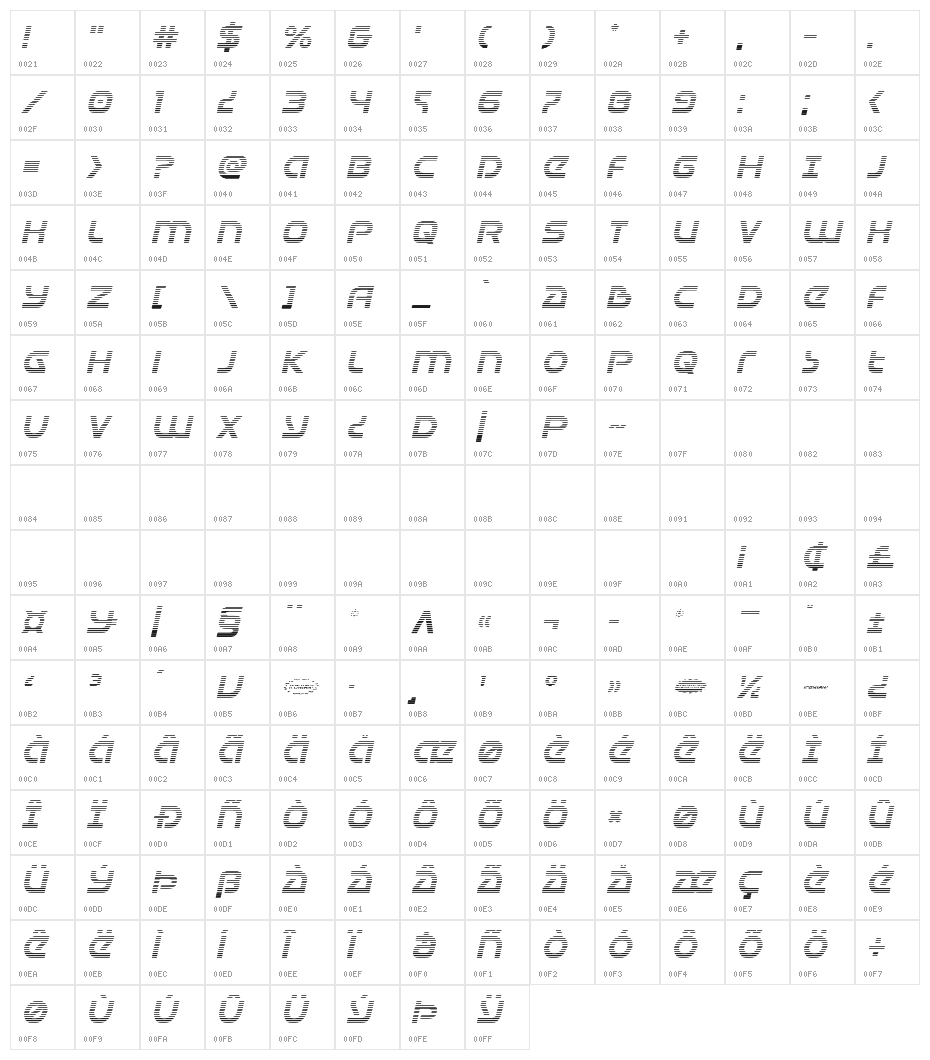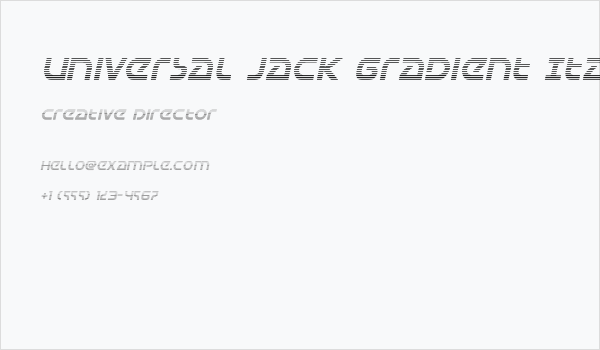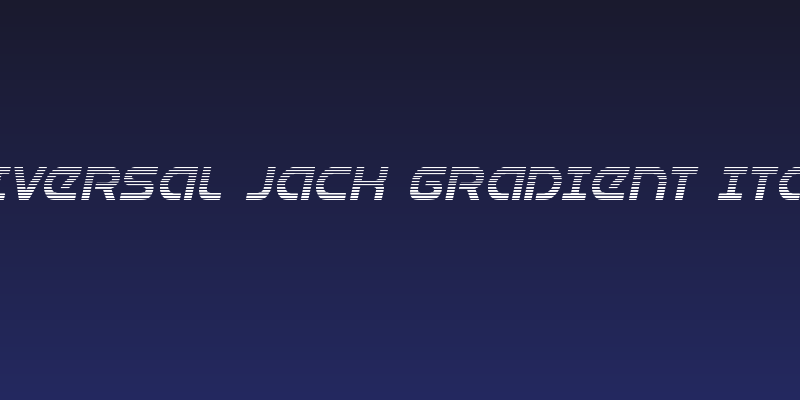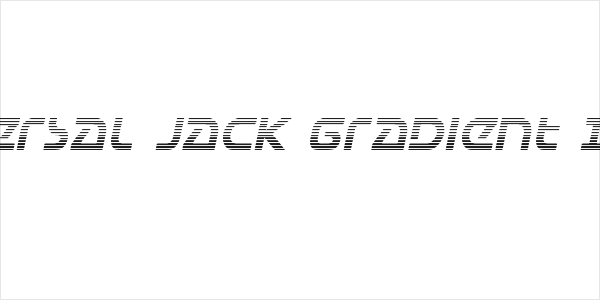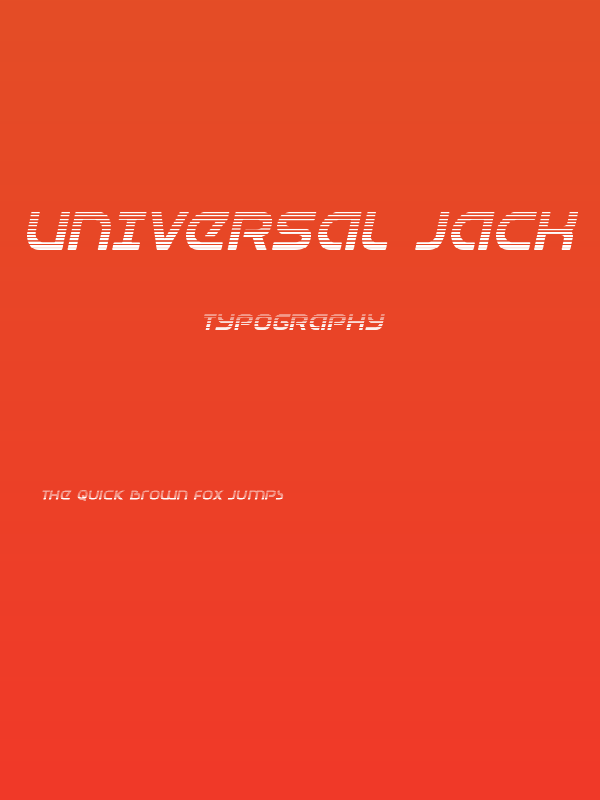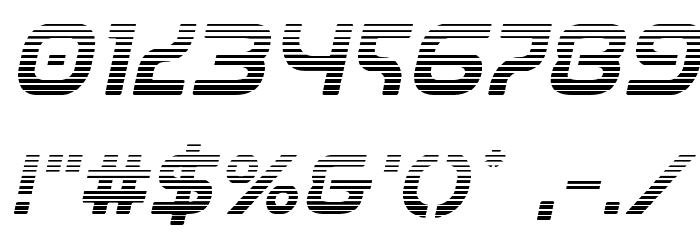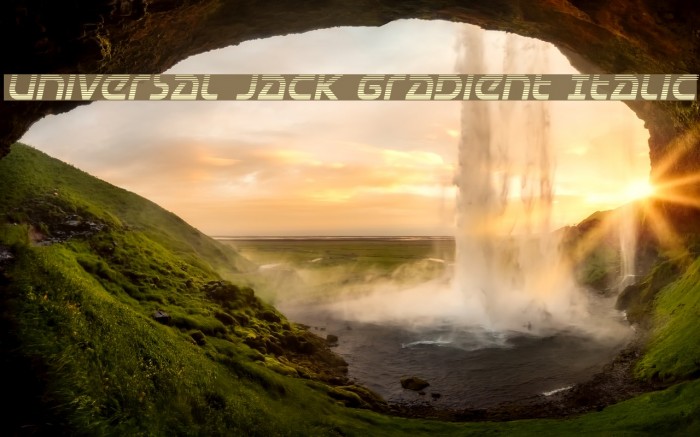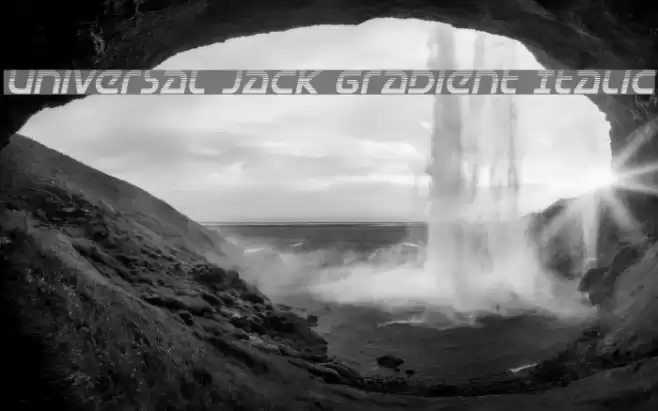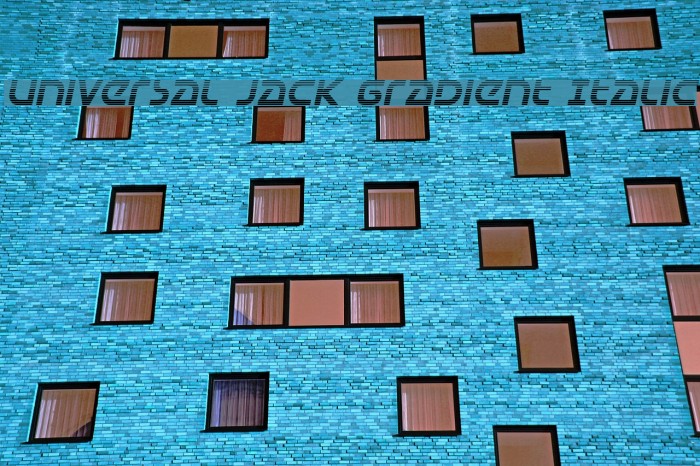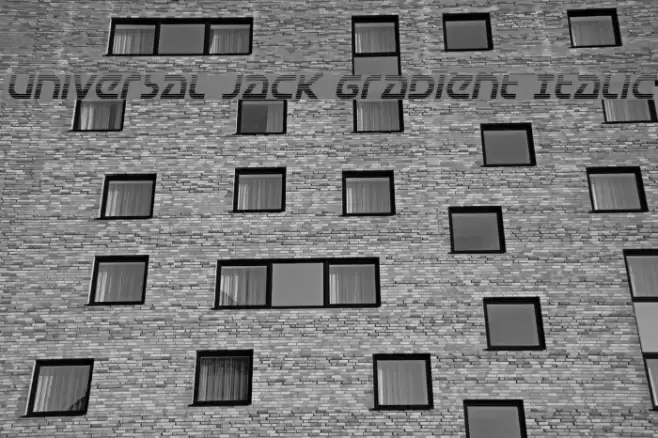
Universal Jack Gradient Italic Font
Universal Jack Gradient Italic Description
This font features a modern, futuristic design with a distinct gradient effect created by horizontal lines running through each character. The italicized style adds a dynamic and forward-leaning appearance, enhancing its contemporary aesthetic. Each letter and number is composed of a series of parallel lines, giving the font a unique striped texture. The characters are bold and slightly condensed, which contributes to a strong visual impact. This font is particularly suitable for projects that require a cutting-edge, tech-inspired look, such as digital media, technology branding, or sci-fi themed designs. The combination of its bold weight and italic slant makes it ideal for headlines and titles where a striking and memorable impression is desired.
| Proposed Projects | Ideal for digital media, technology branding, sci-fi themes, and striking headlines. |